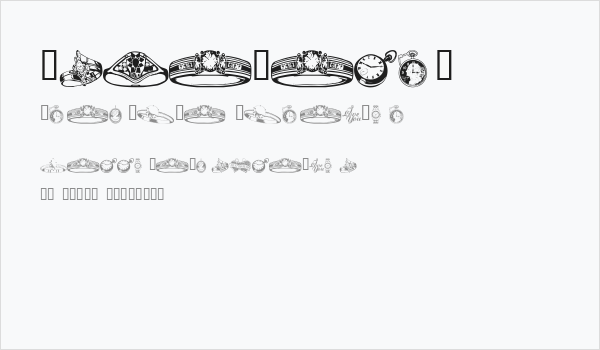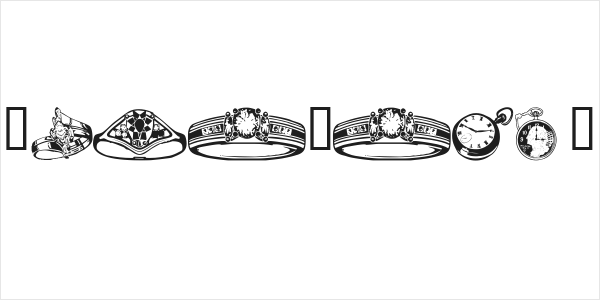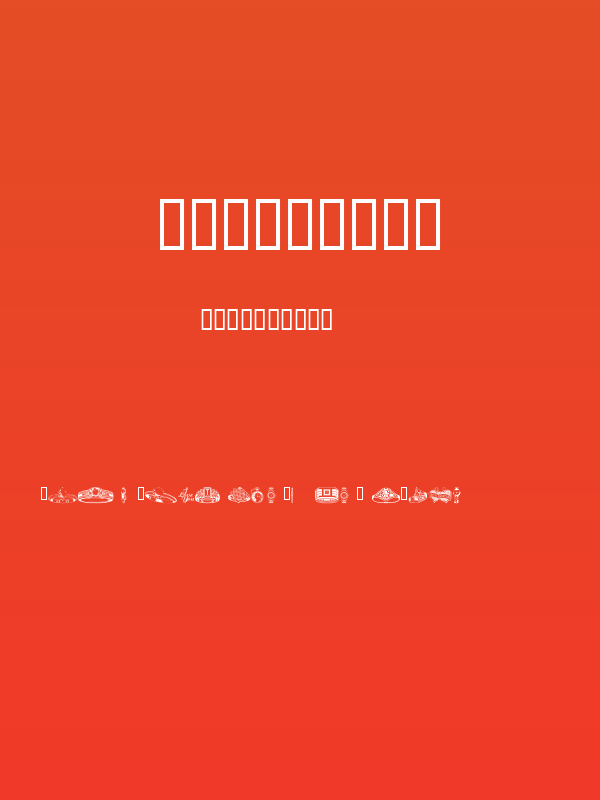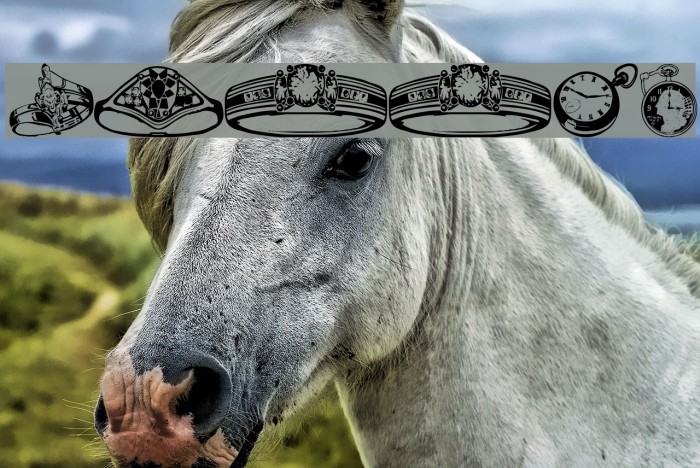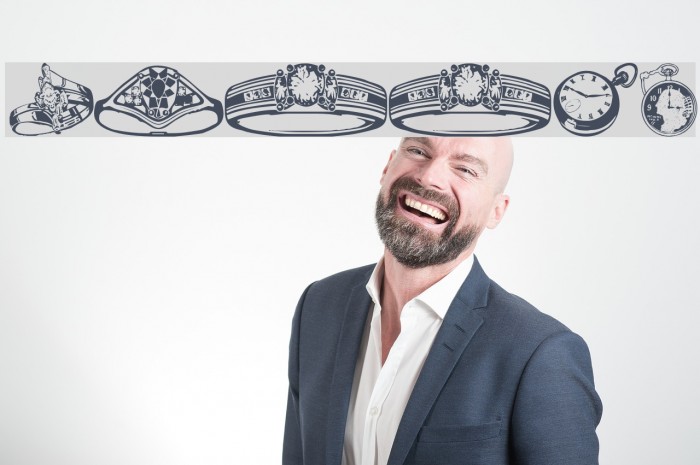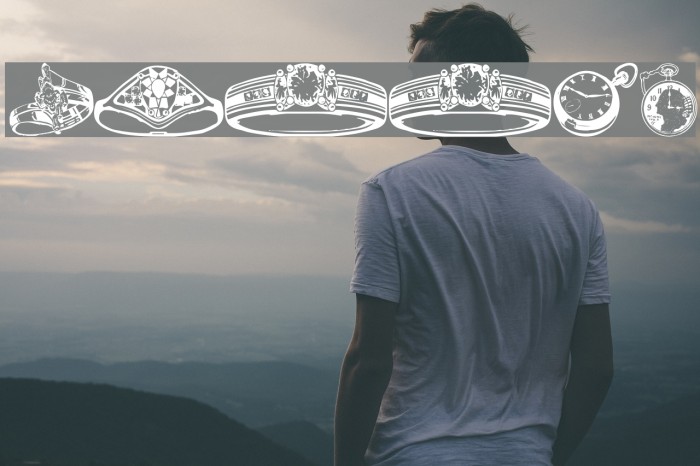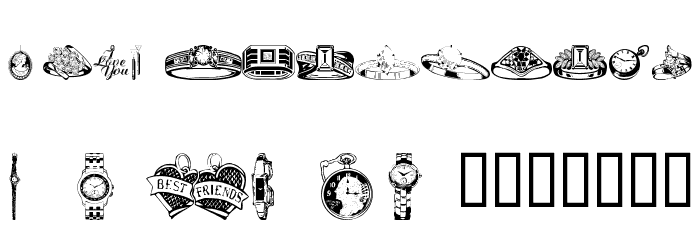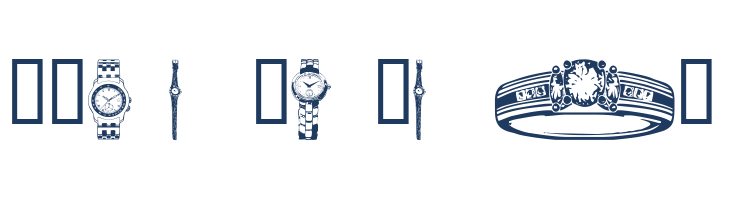
wmjewelry Font
This is a decorative dingbat font featuring detailed black-and-white illustrations of jewelry items such as rings, watches, and bracelets. Each character is represented by a unique jewelry-themed drawing, making it highly ornamental and illustrative rather than typographic.
| Overall Style | Decorative, Illustrative |
| Use Case | Decorative elements, Icons, Themed graphics |
| Proposed Projects | Greeting cards, scrapbooking, themed invitations, jewelry catalogs, decorative dividers, and branding for jewelry stores. |